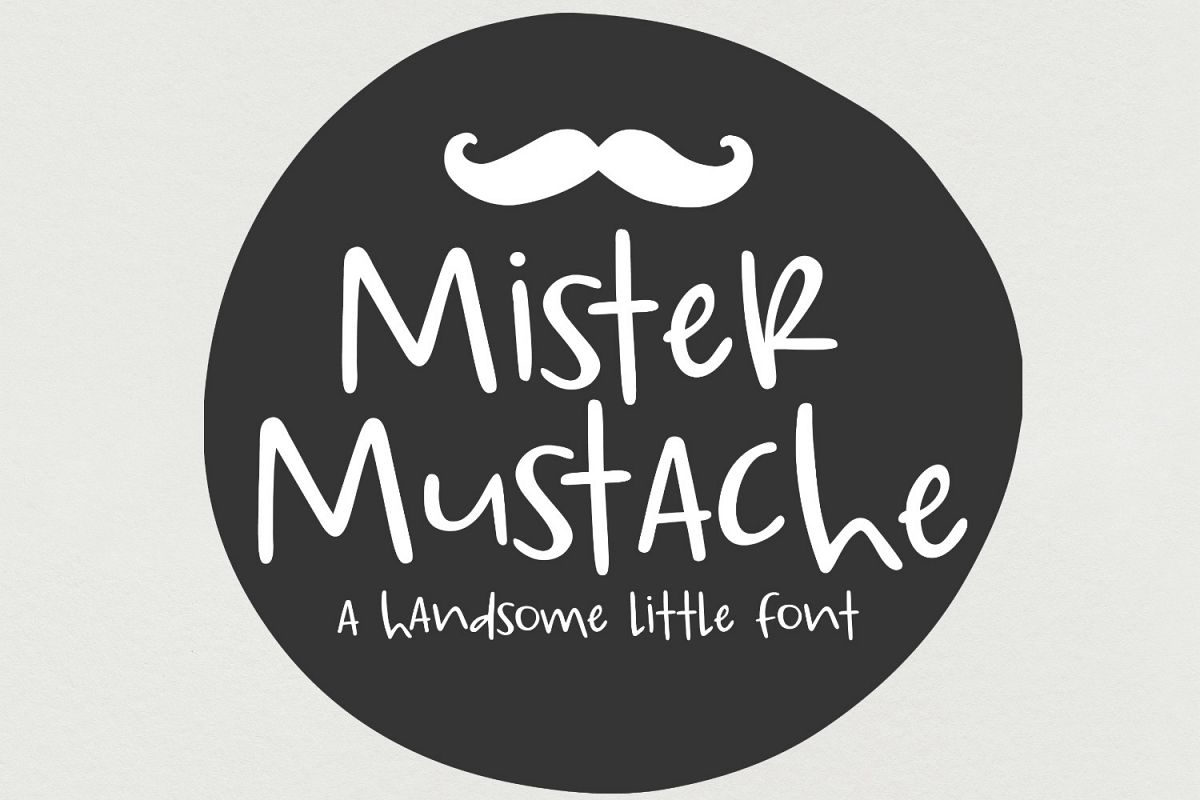
Mister Mustache- Handwritten Font
Mister Mustache is a brand new handwritten font perfect for any design that calls for a touch of quirkiness!  Use the | (bar) on your keyboard to access the mustache.
This font includes Latin extensions to support most Western European languages.